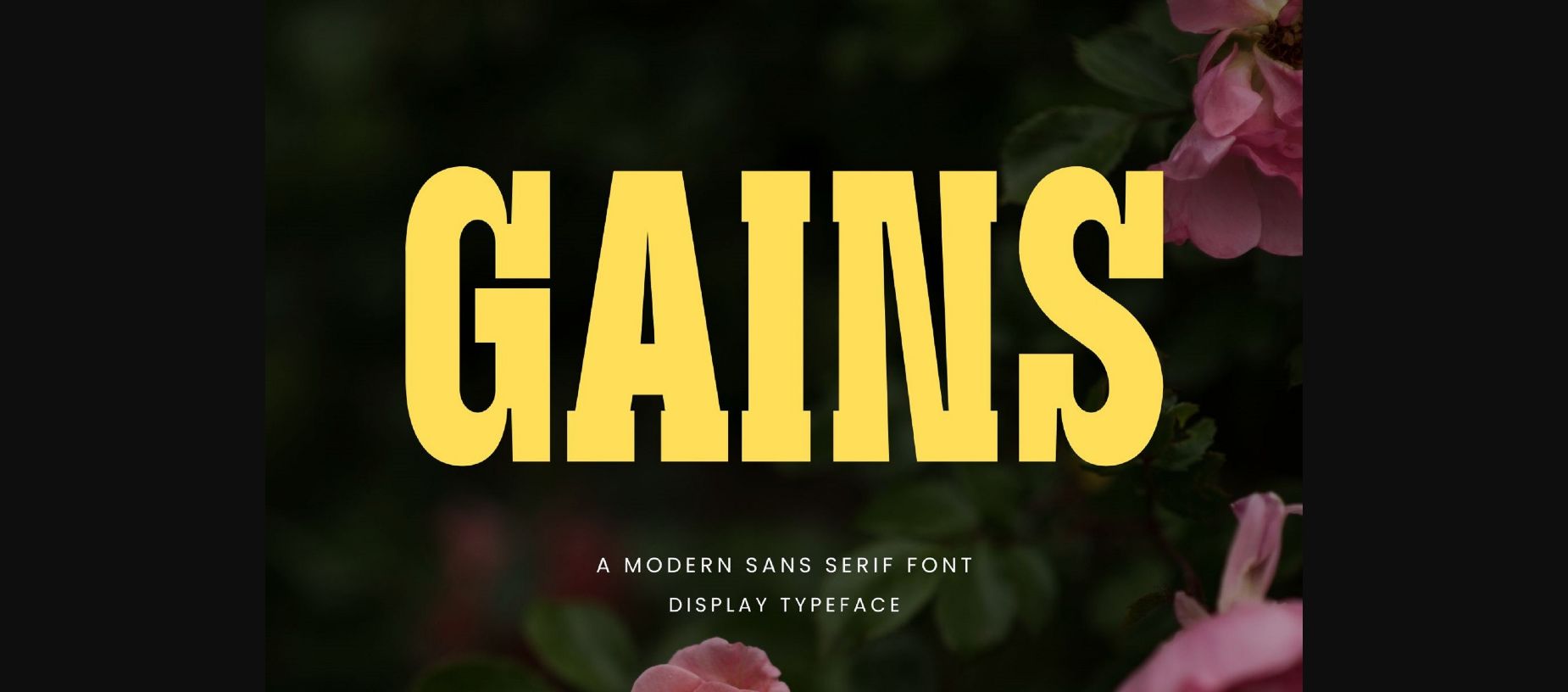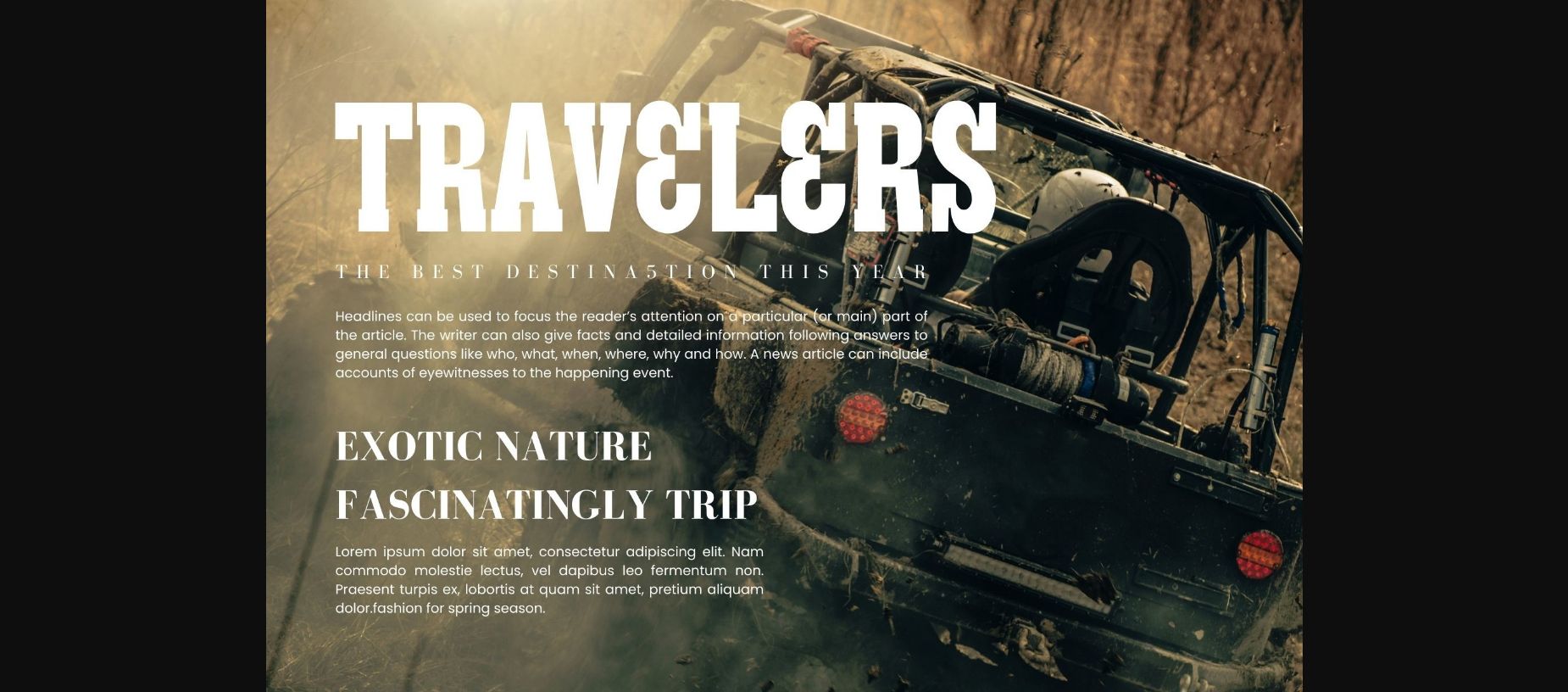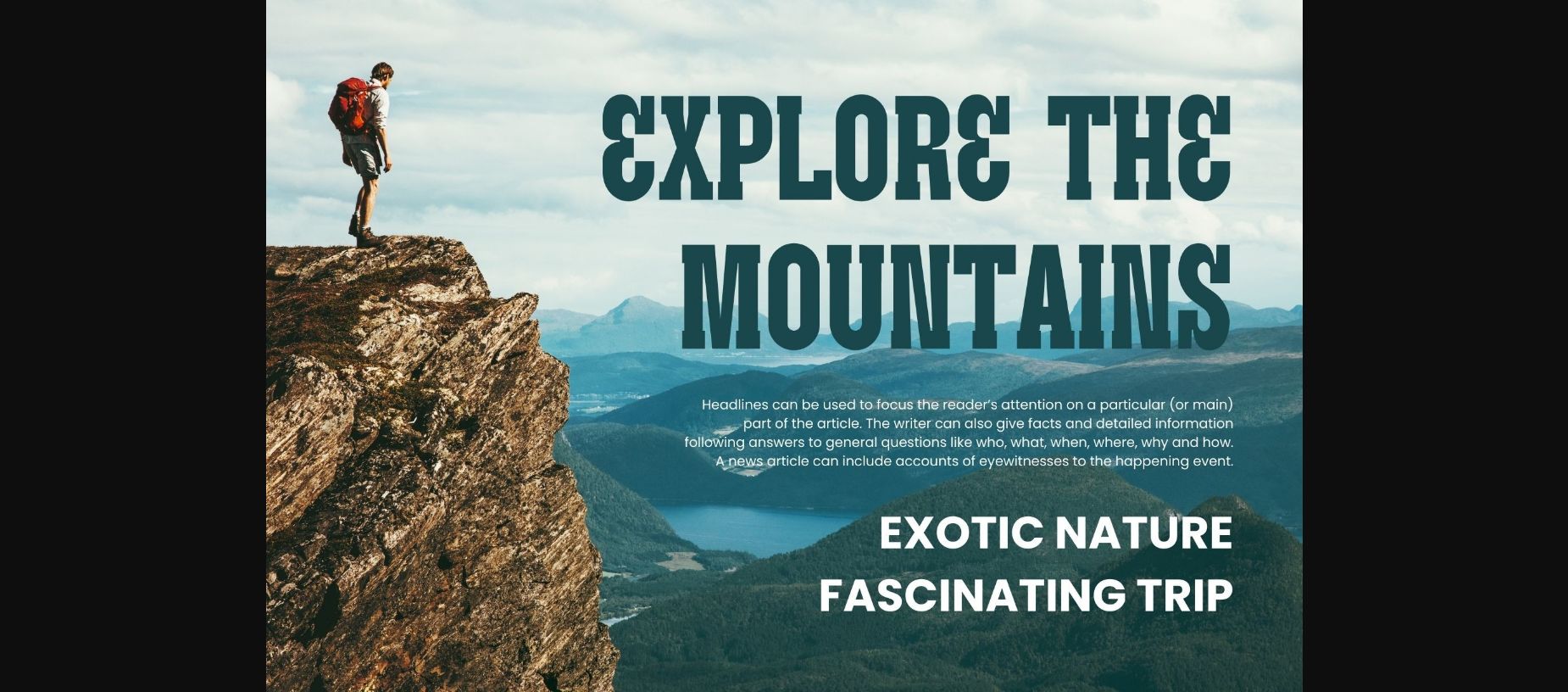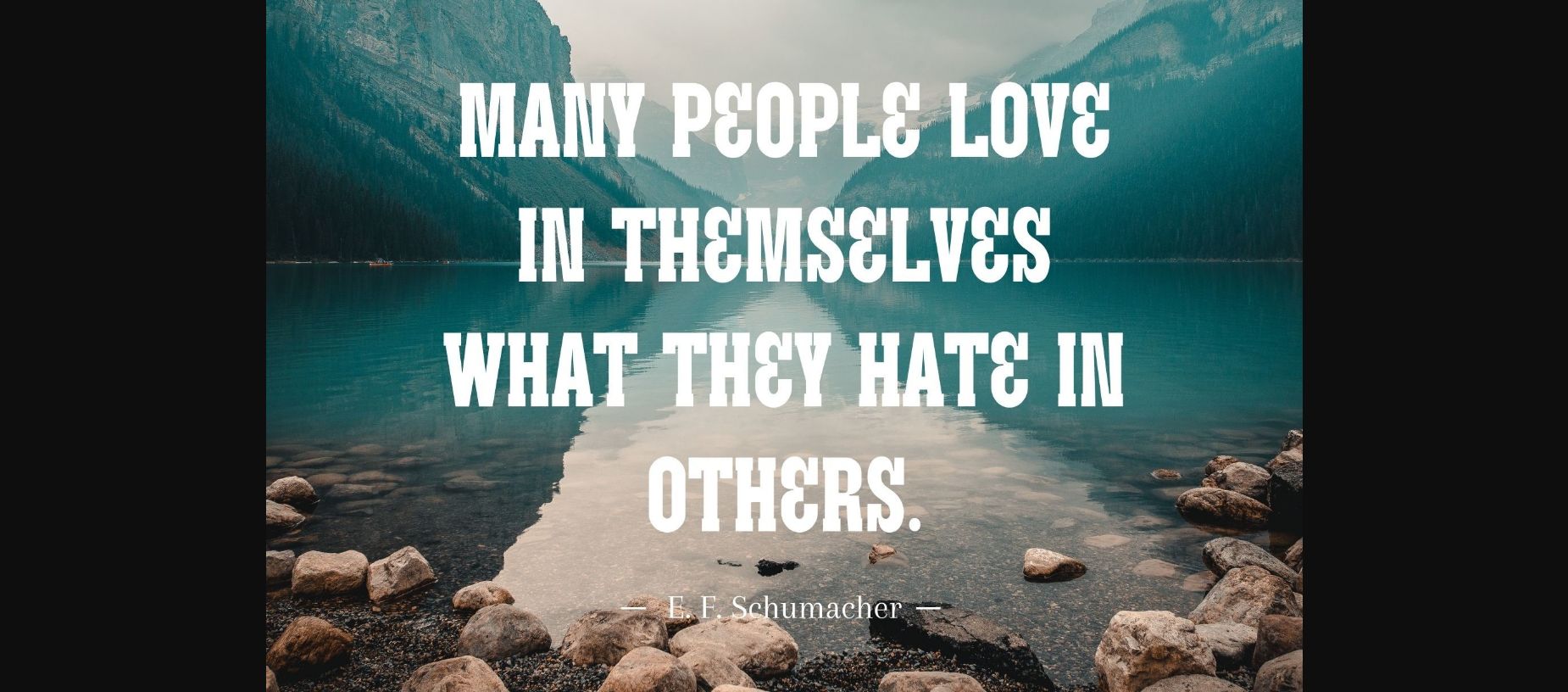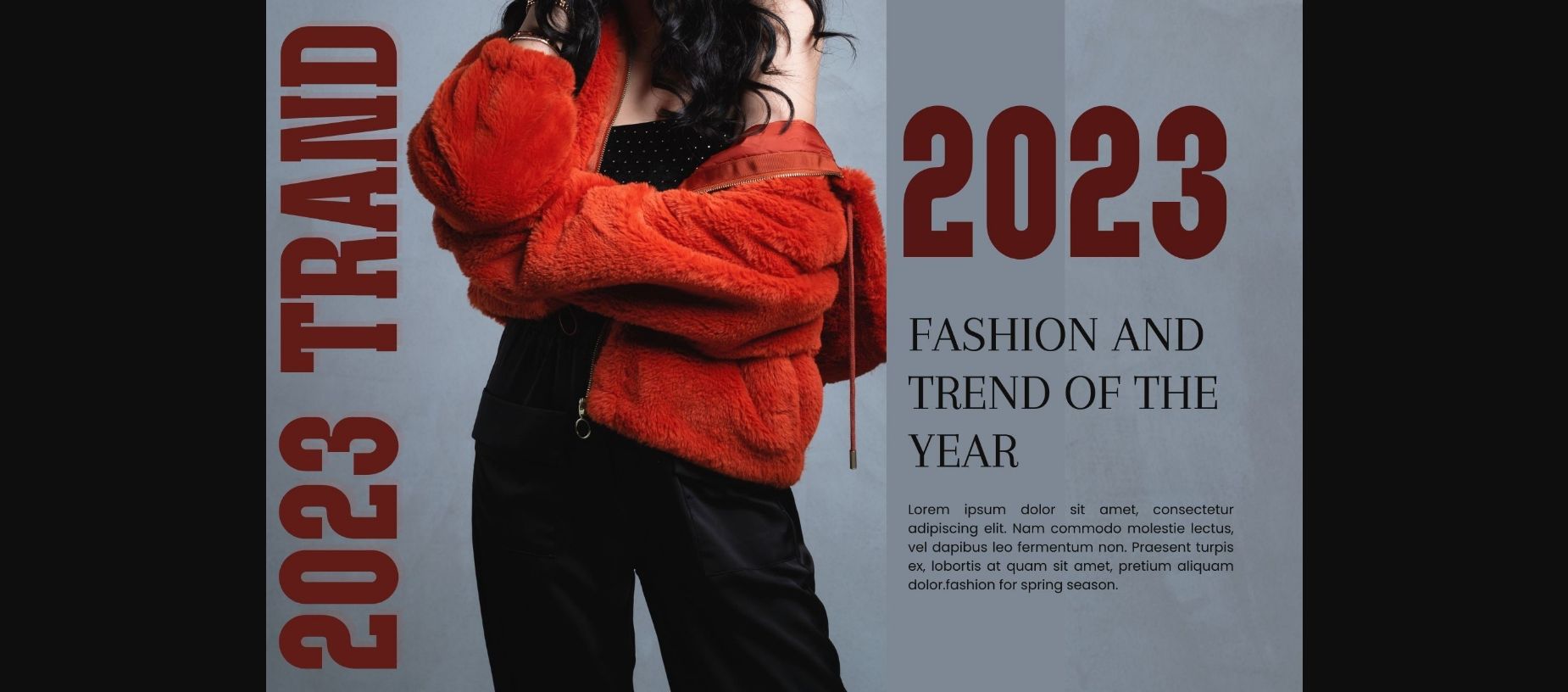
About Gains Font
A sleek and contemporary display typeface designed to make your words stand out. With its clean lines and bold presence, Gains Font adds a touch of modern sophistication to any design project, whether it’s for headlines, branding, or creative displays. Elevate your typography game with Gains Font’s distinctive and captivating style.